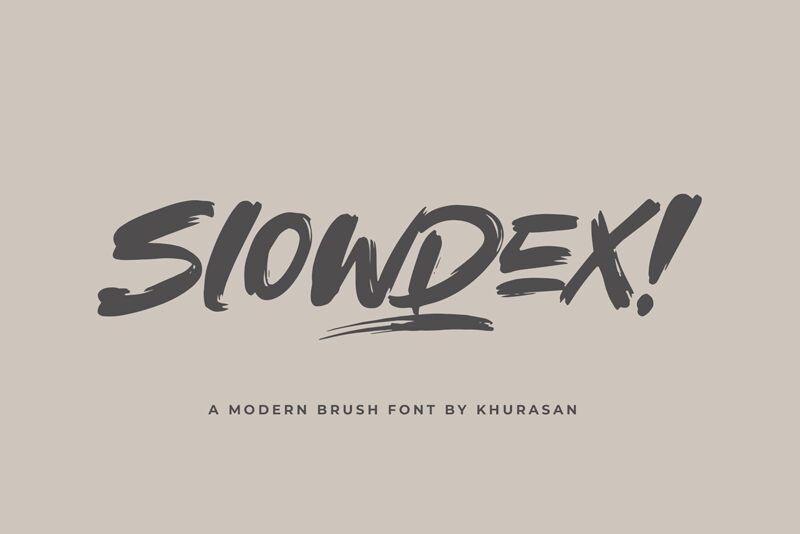
Slowdex, designed by Khurasan, is a brush style font that exudes a dynamic and expressive character with its semi-bold weight and semi-expanded width. Crafted to capture the essence of hand-painted signage and spontaneous artistry, Slowdex delivers an authentic aesthetic that adds personality and vitality to any visual composition.
Its bold strokes are reminiscent of an artist's brisk movements, yet the font retains readability, making it versatile for various creative endeavors. The brush effect lends a human touch to digital designs, bridging the gap between traditional artistry and contemporary digital expression.
Perfect for projects requiring a touch of informality balanced with impact, Slowdex is ideal for eye-catching headlines, spirited advertising campaigns, distinctive branding materials, or any platform seeking to stand out with a personal flair. Its aesthetic appeal lies in its ability to convey movement and energy while maintaining clarity – an attribute that can elevate your creative project's visual narrative.